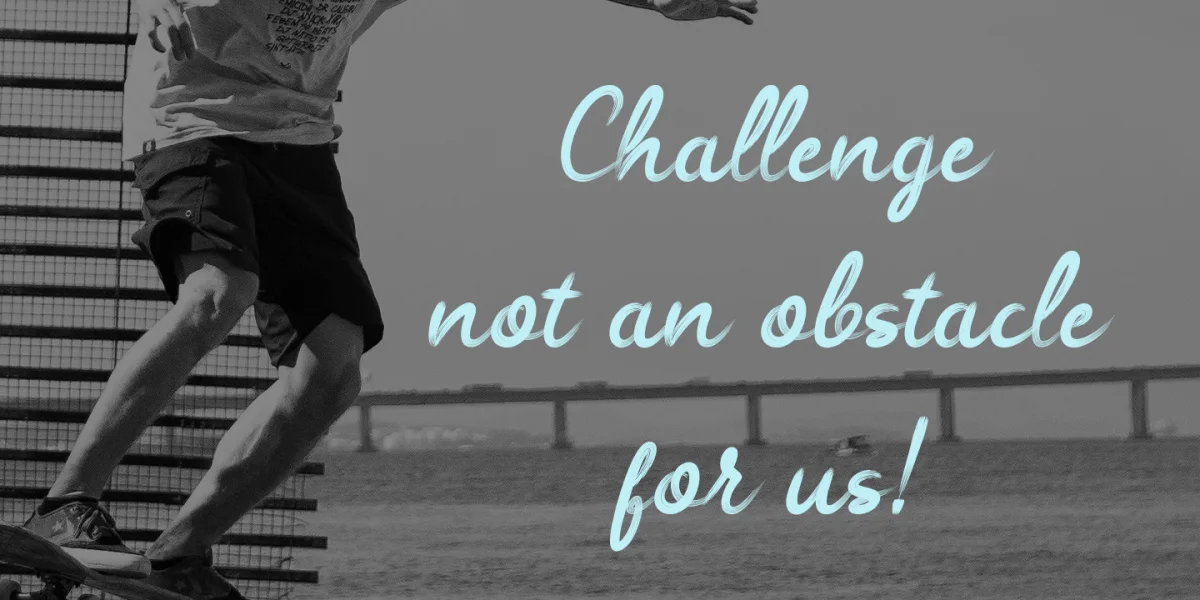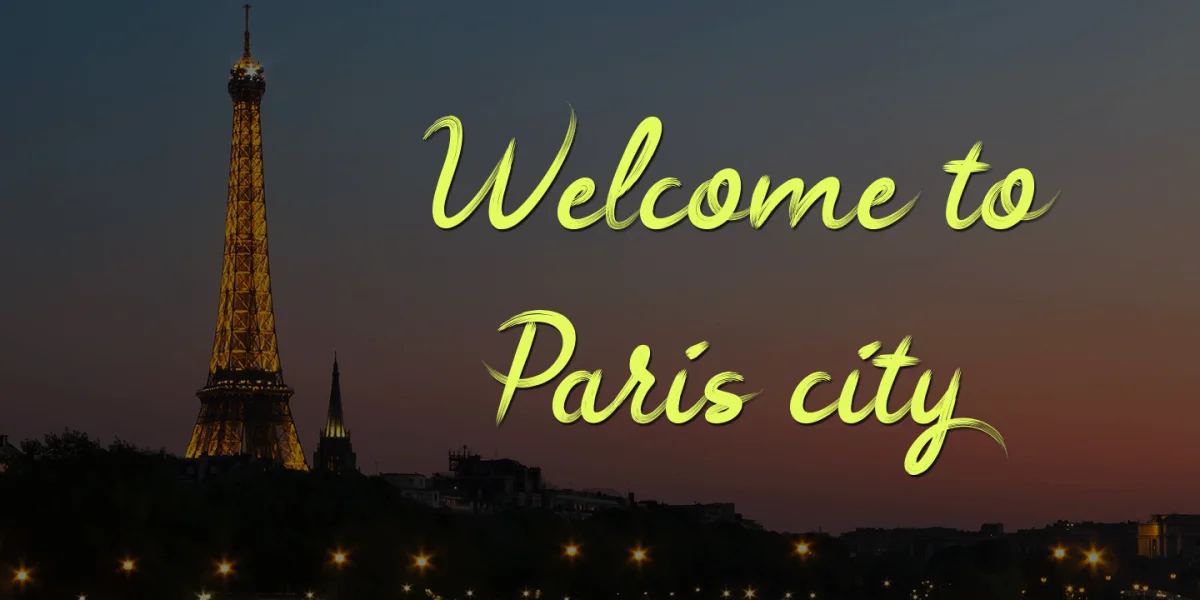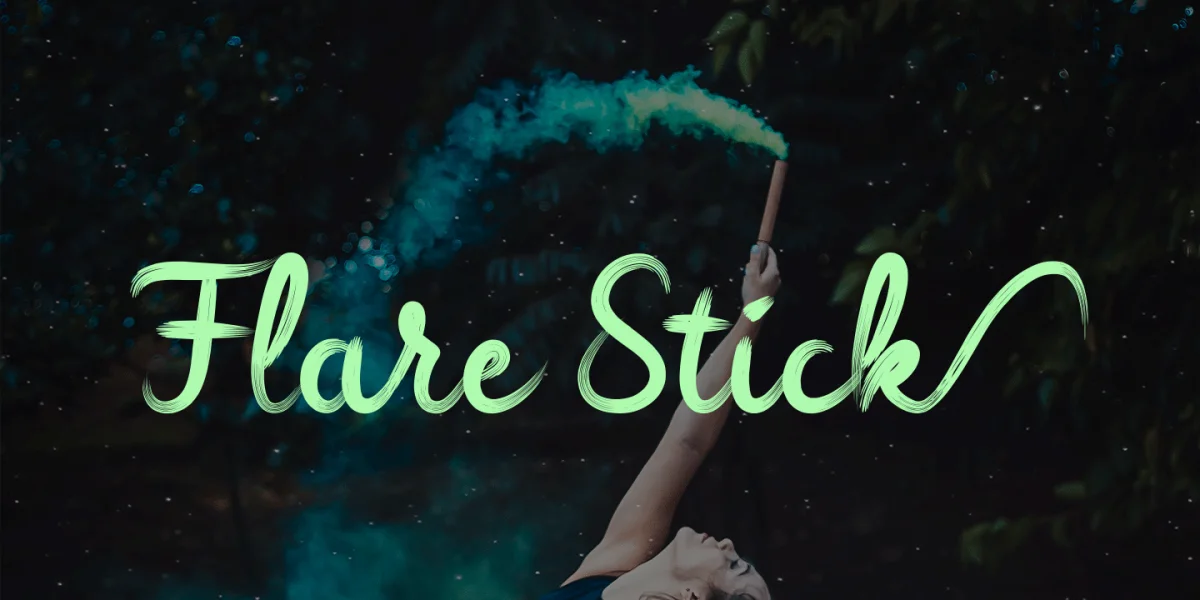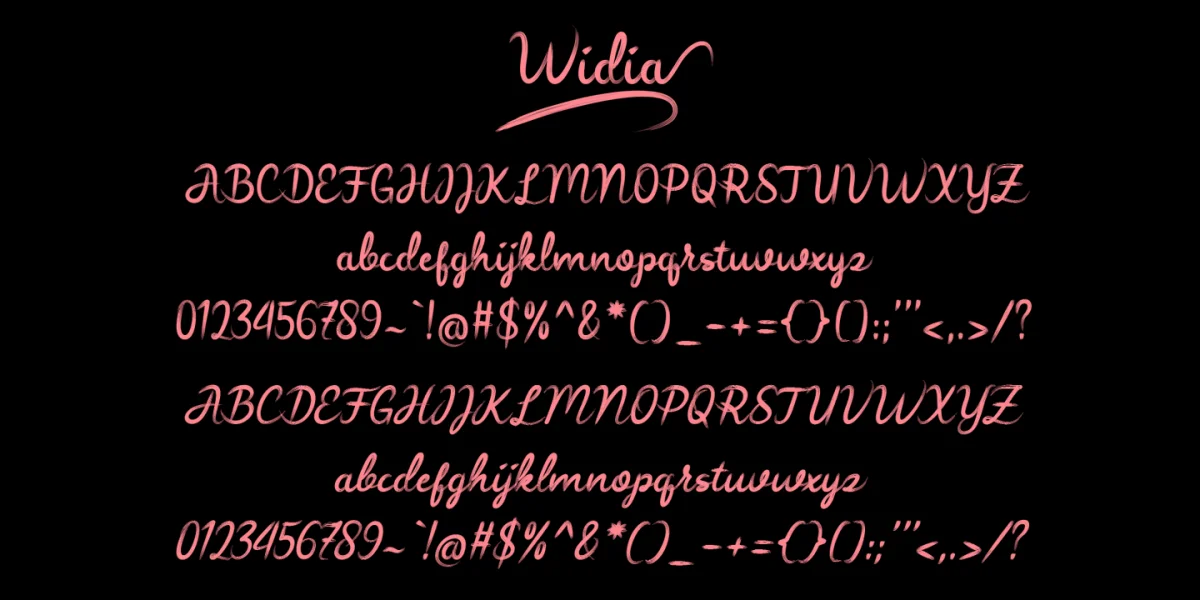
Widia hand brush is a script in a new, modern, handmade calligraphy, with decorative characters, suitable for invitations, greeting cards, branding materials, business cards, quotes, posters, and more.